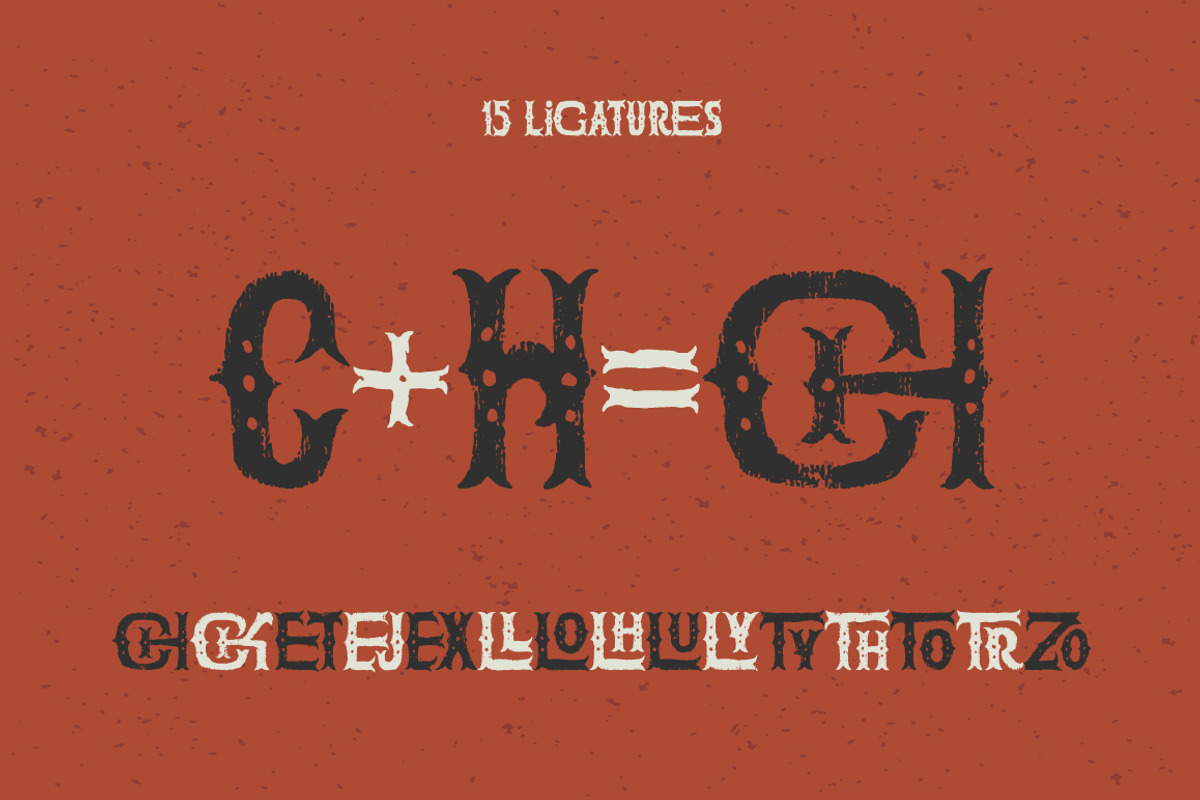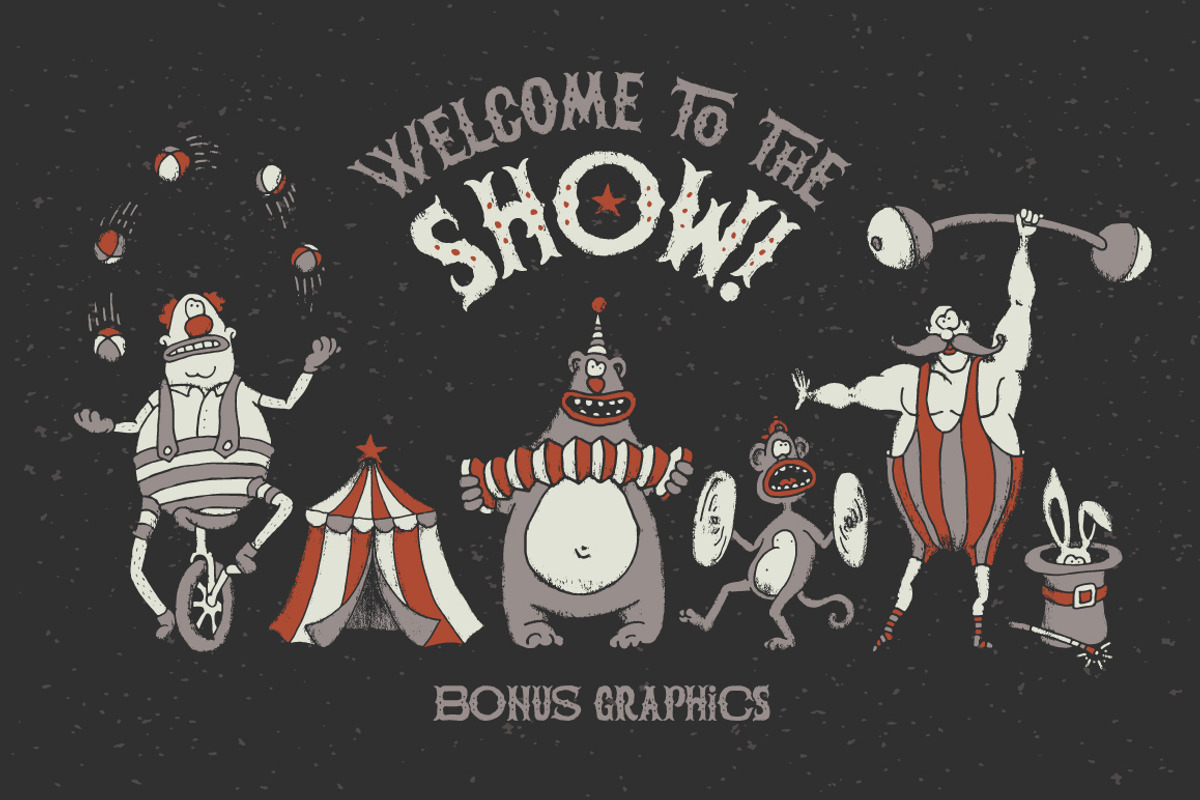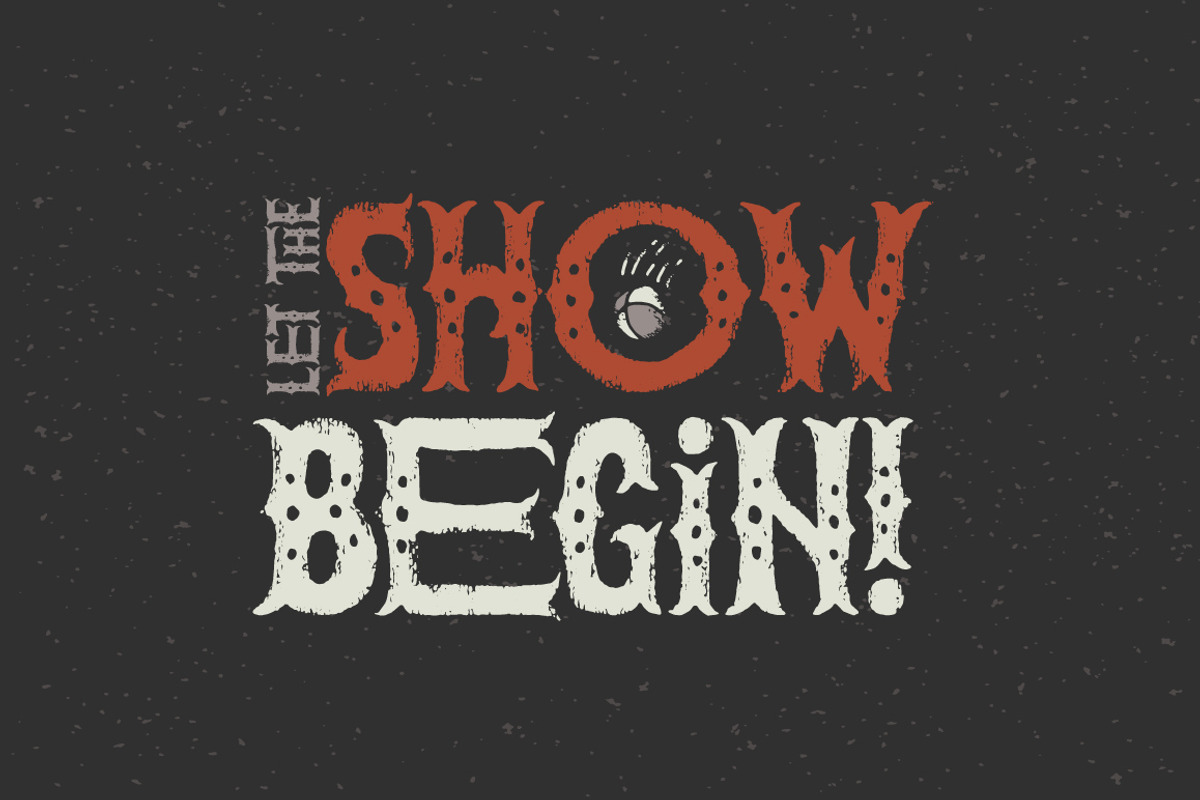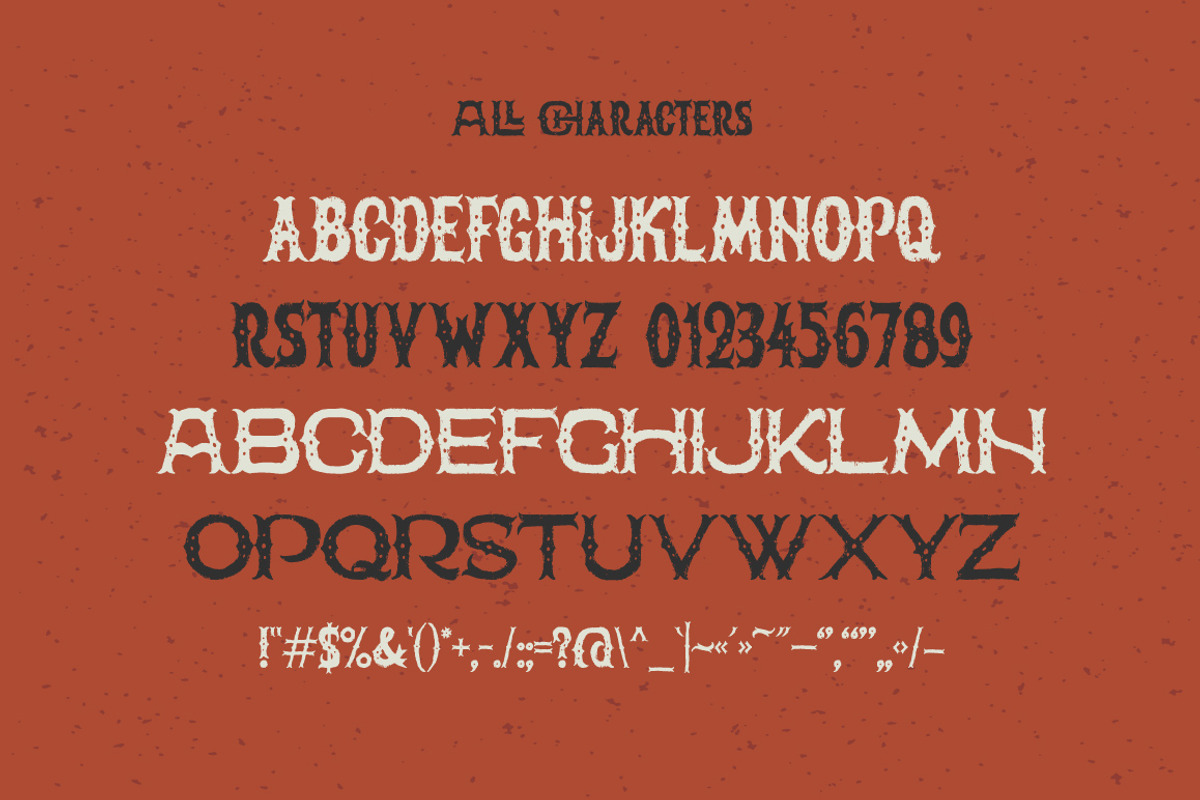
The Freaky Circus font
The Freaky Circus font by Gleb Guralnyk is a font selected for branding, posters, packaging, typography.
- The Open Type font includes 15 automatically replaceable ligatures.
- You can also variate between wide and narrow letters using capital characters.
Why The Freaky Circus font is worth a look
The Freaky Circus font by Gleb Guralnyk fits naturally into Branding, posters, packaging, typography.